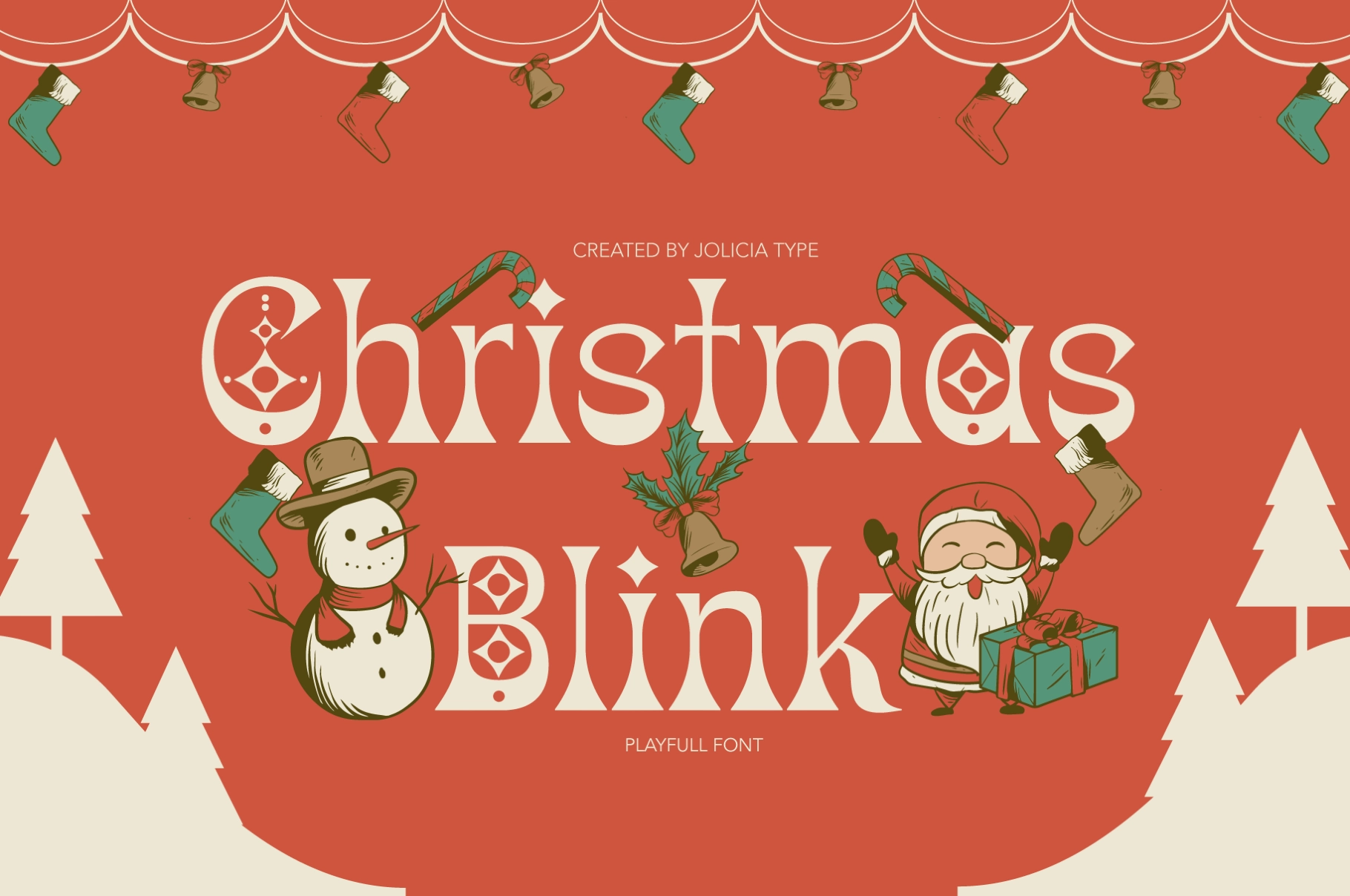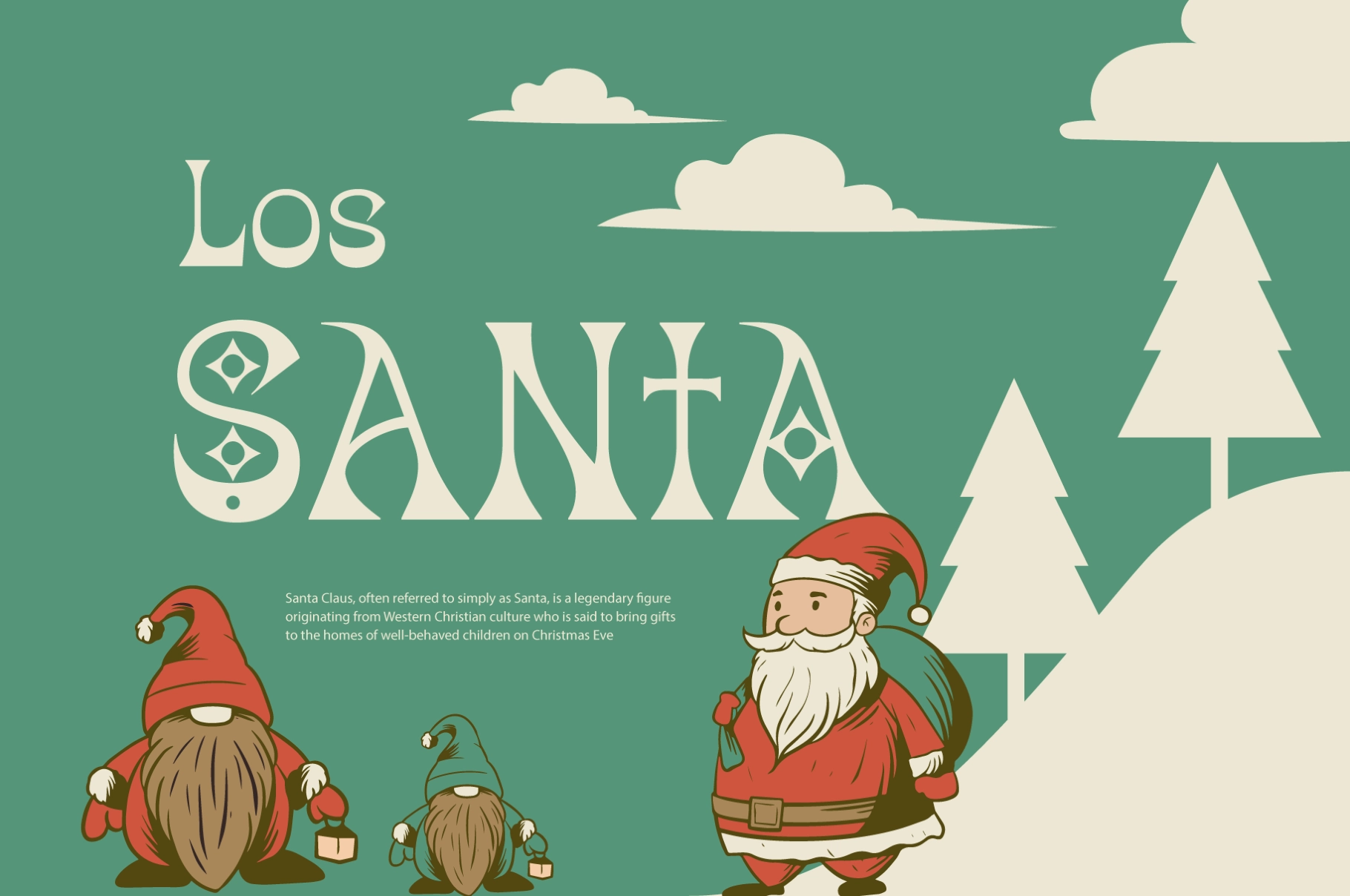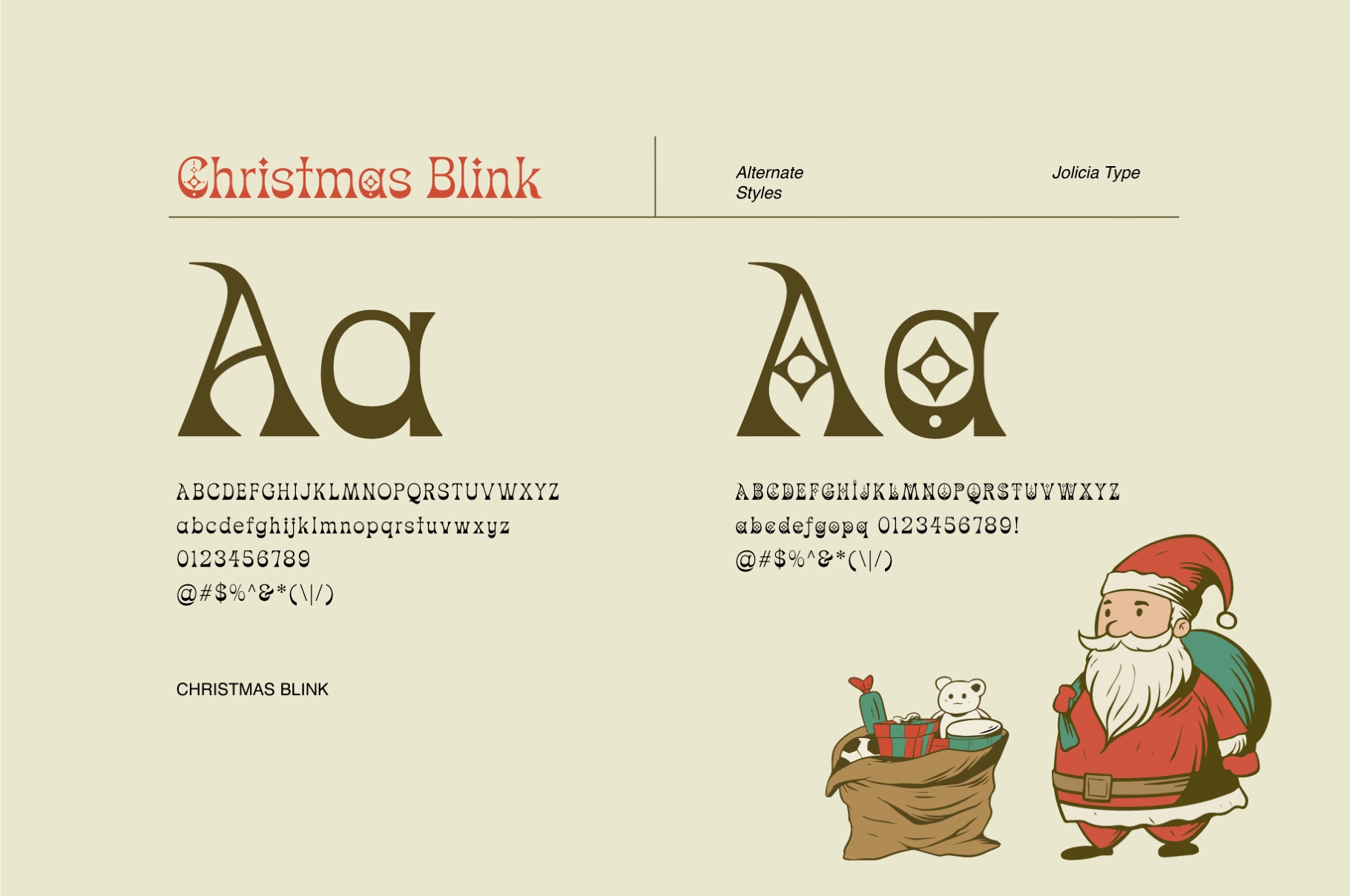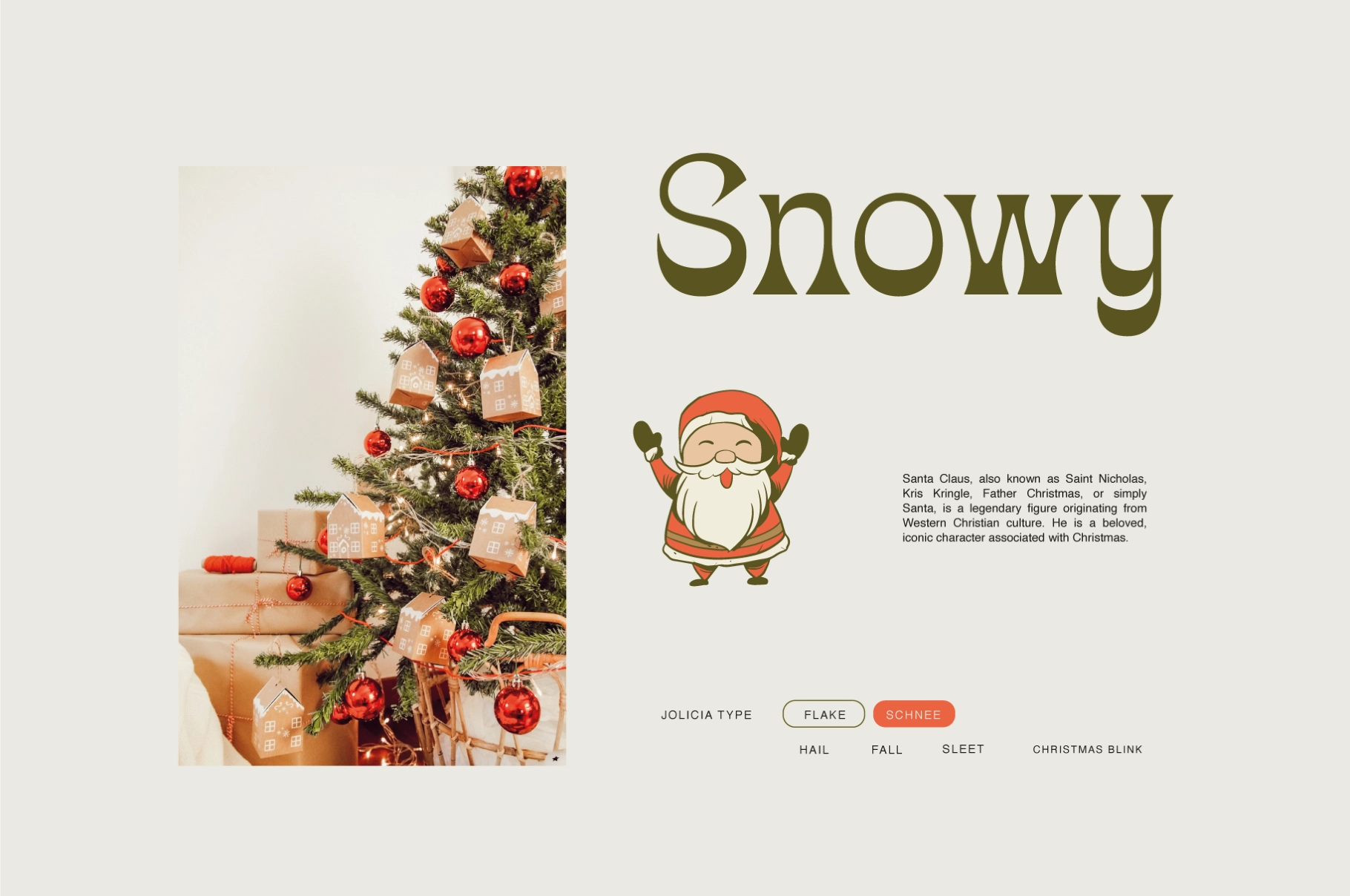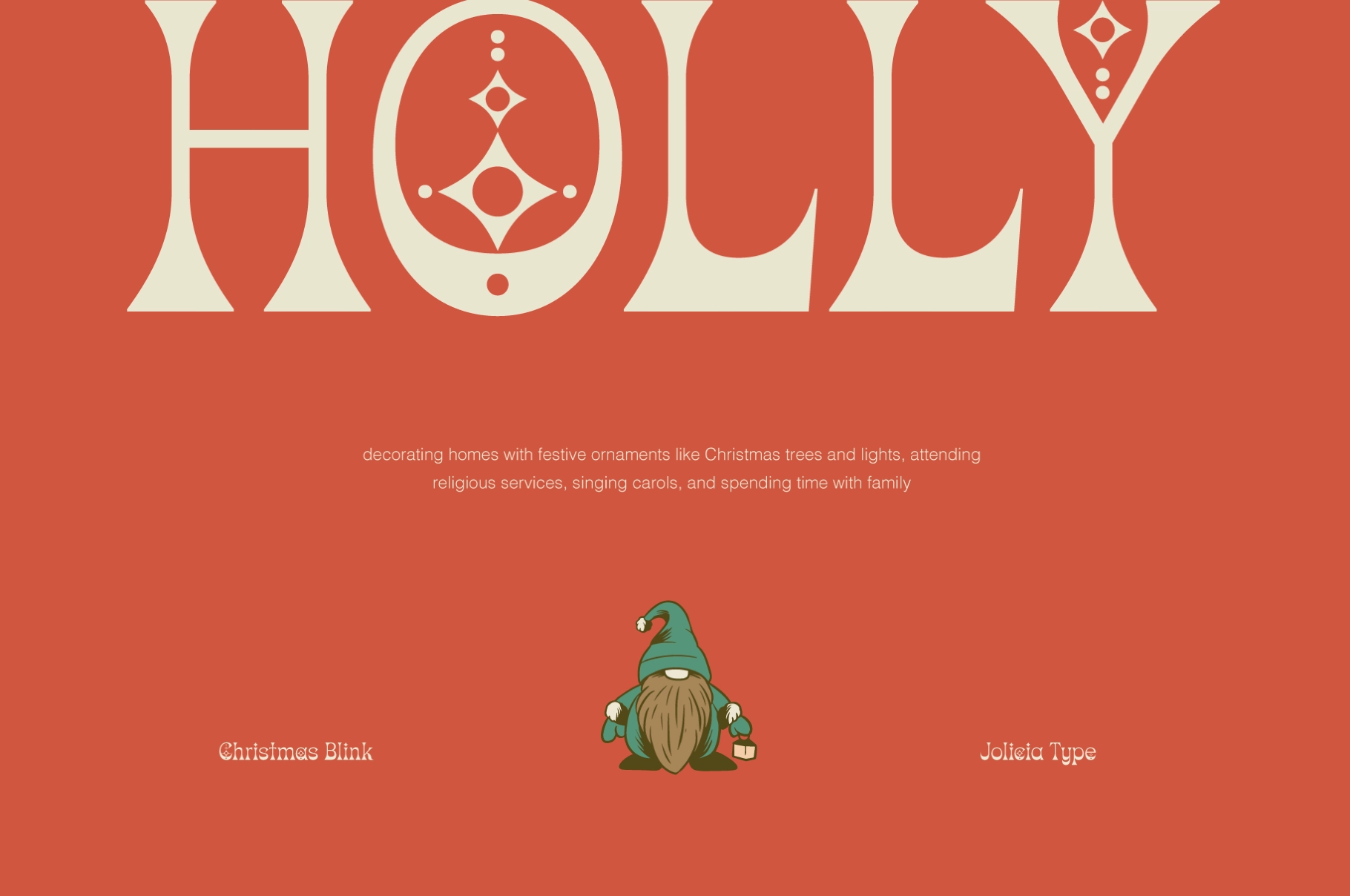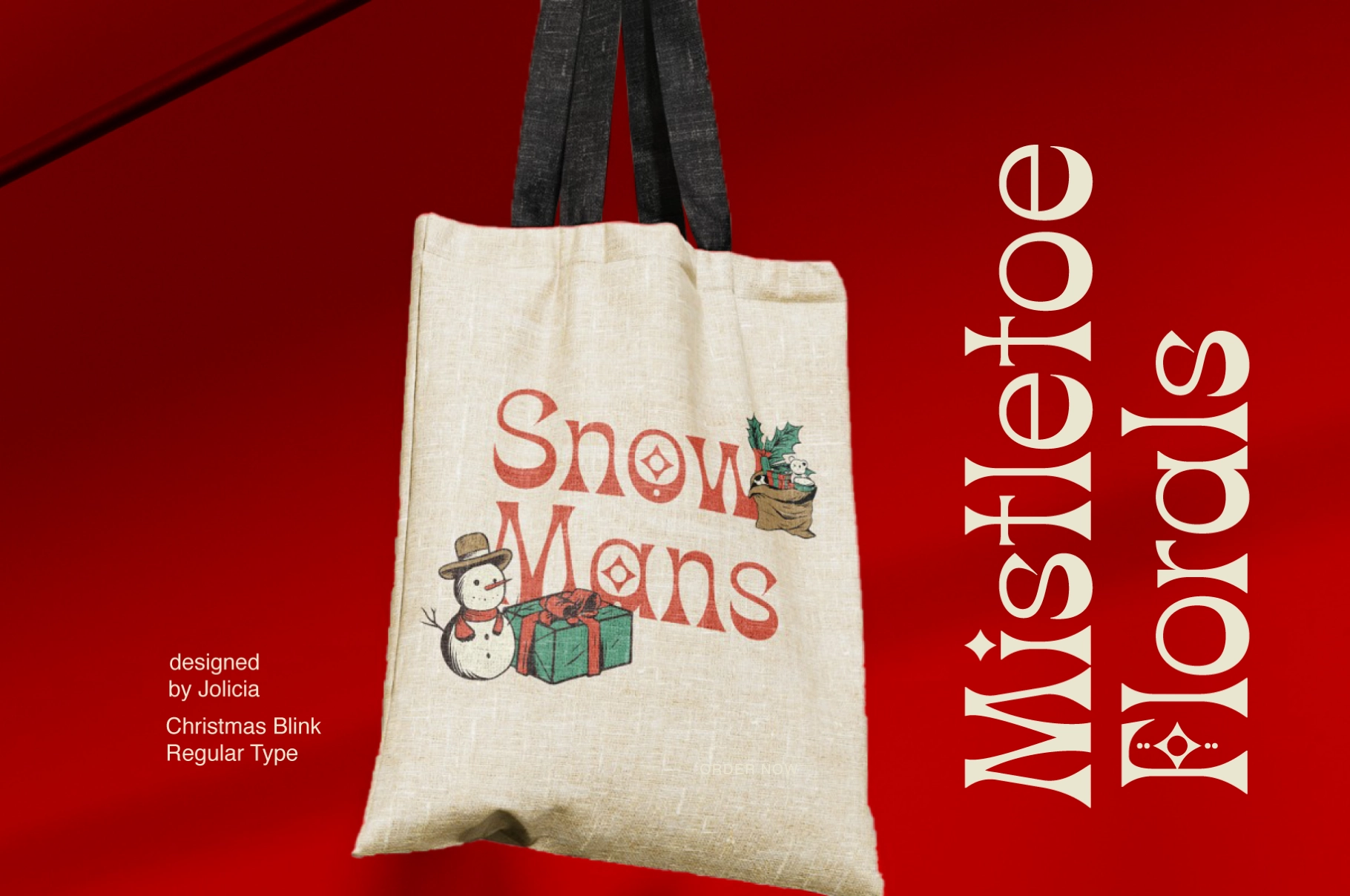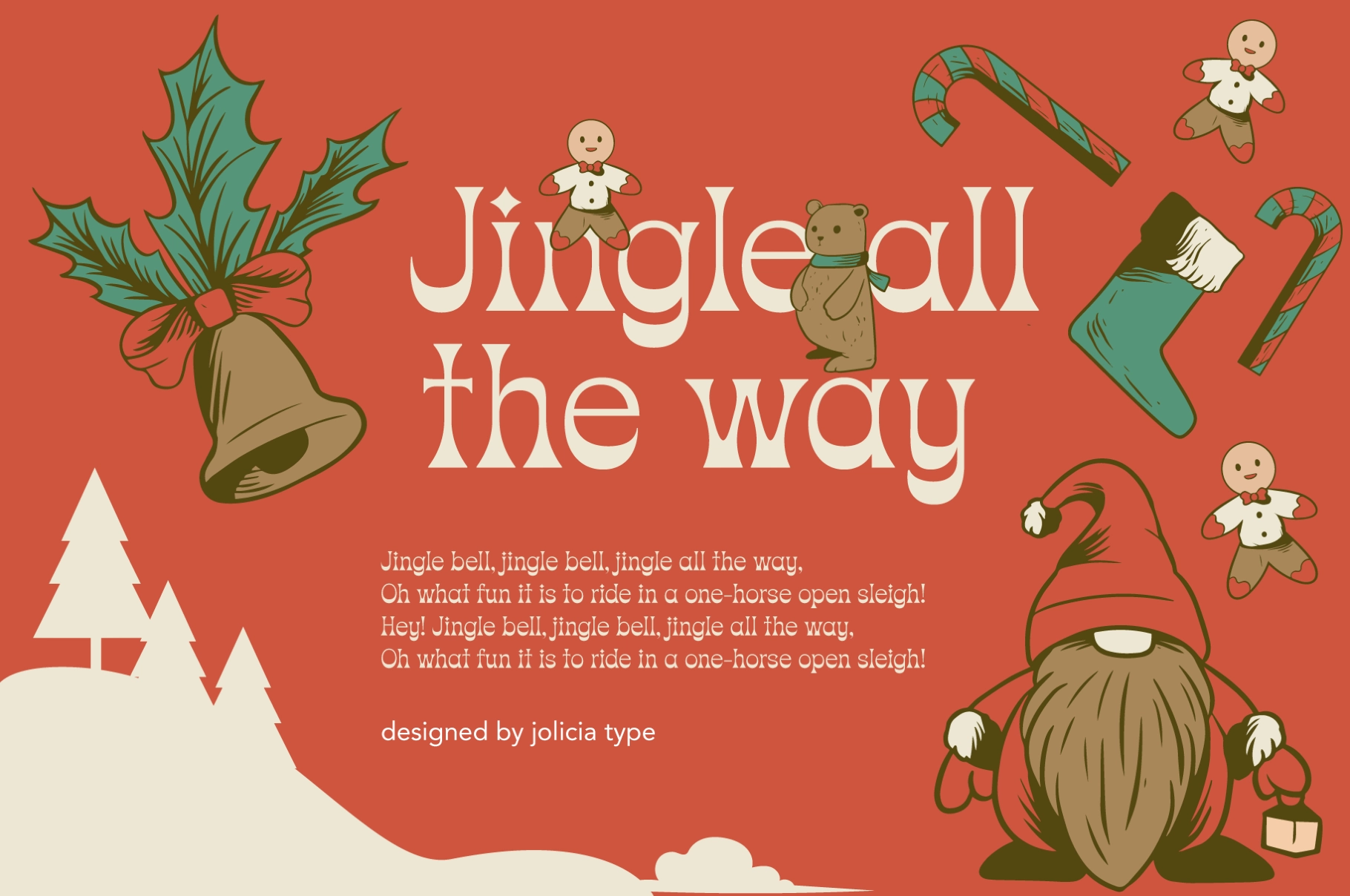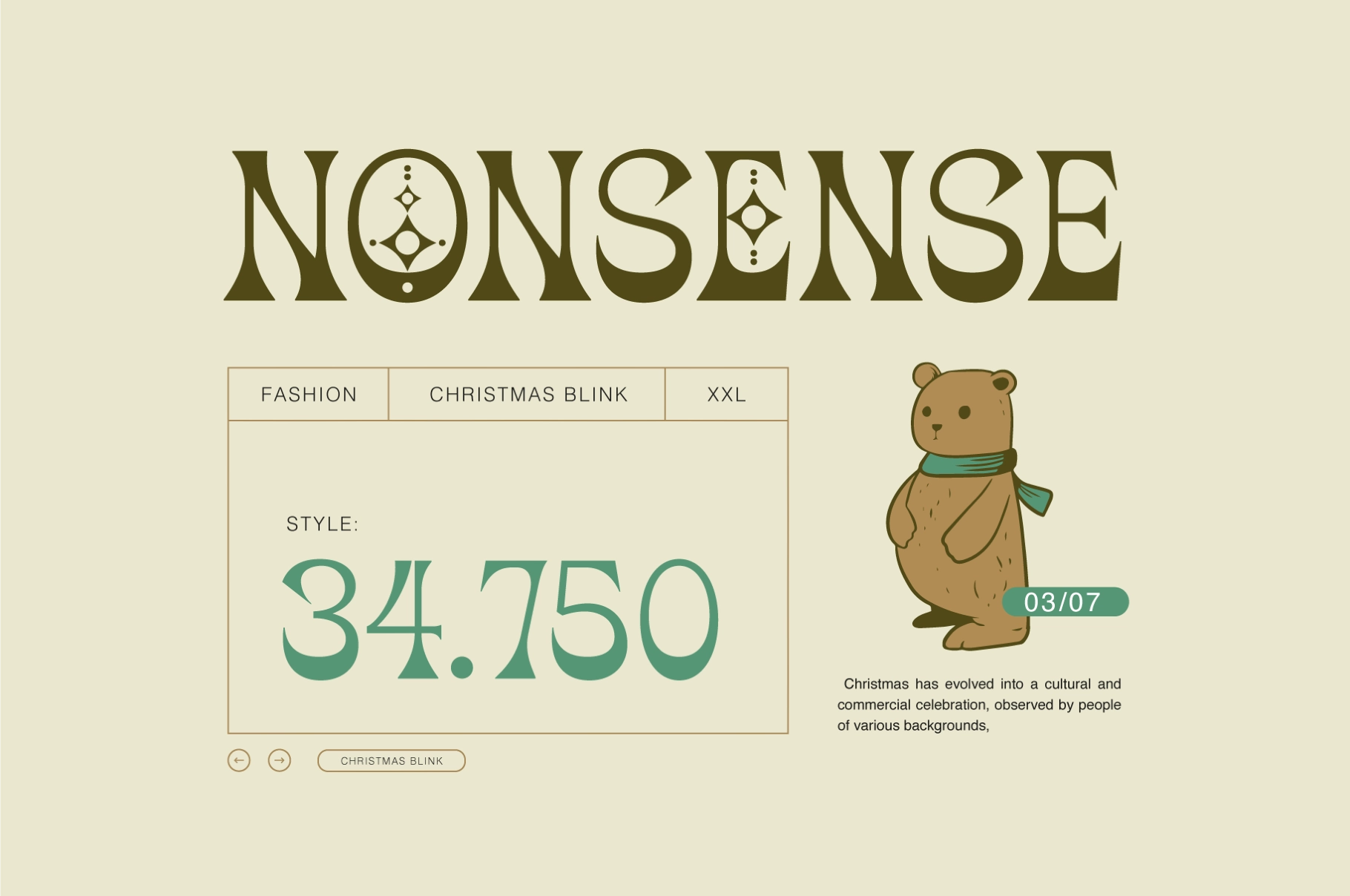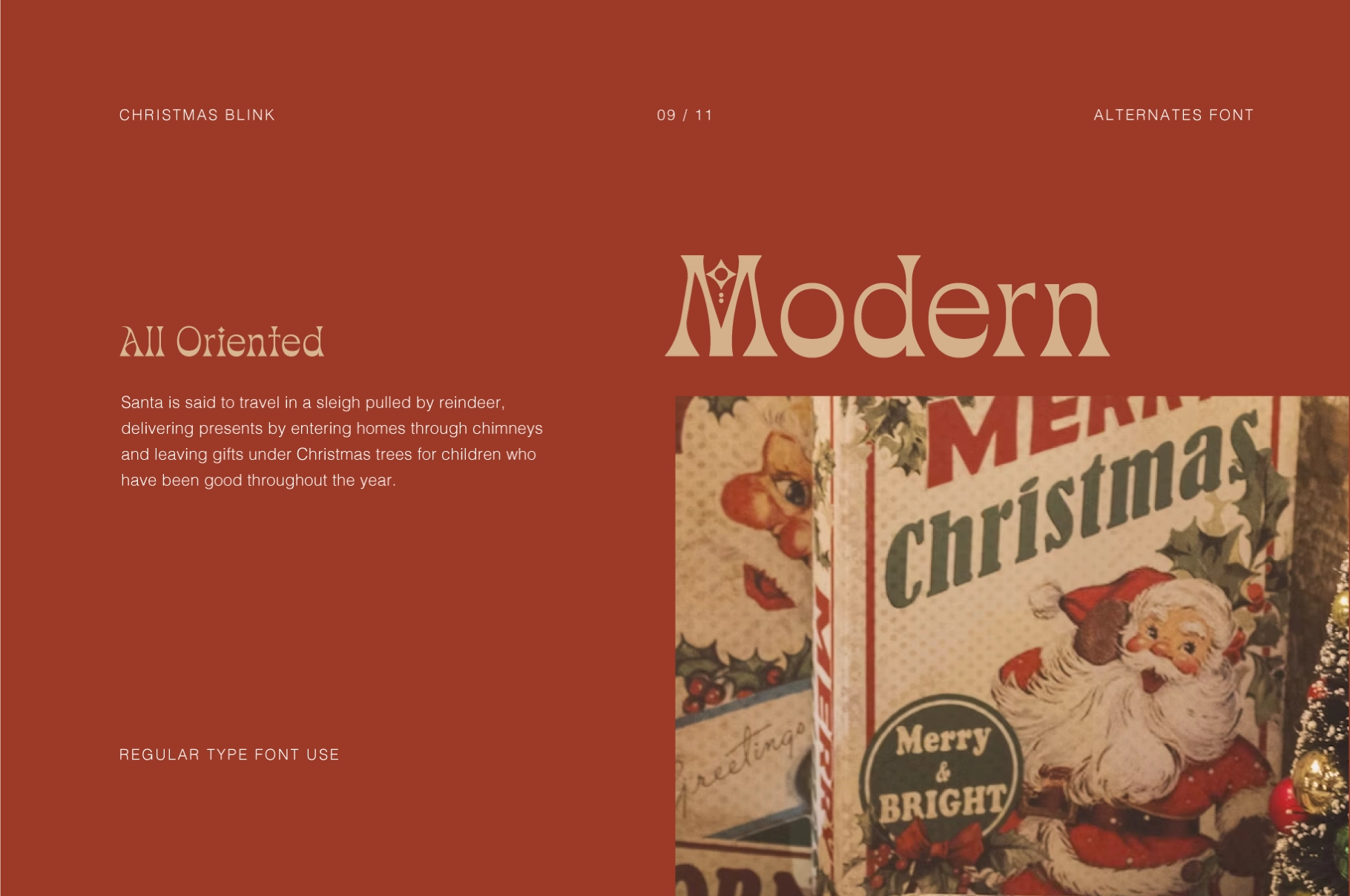
Christmas Blink - Festive Serif Font
Christmas Blink
This festive display typeface pairs flared serif shapes with ornament-like alternates, giving each word a bright holiday character. The letterforms are crisp and playful, with star details, rounded counters, and a storybook look that suits seasonal design without tipping into sugar overdose.
Christmas Blink is made for greeting cards, gift tags, holiday packaging, children’s book covers, party invitations, café menus, shop windows, festive posters, social media announcements, craft labels, apparel prints, and more. Its regular and alternate characters give designers room to create decorative headlines, polished logos, and cheerful layouts with a little extra twinkle - the respectable kind.
- Regular & Alternate styles
- Ligatures